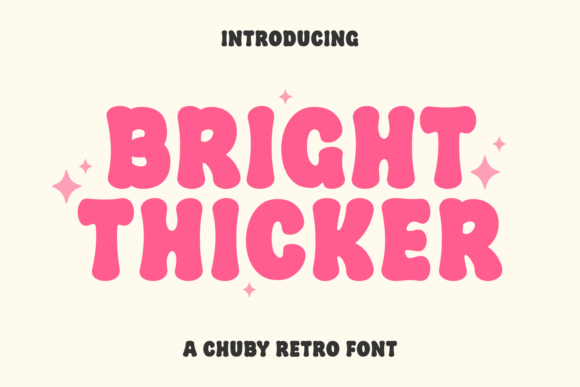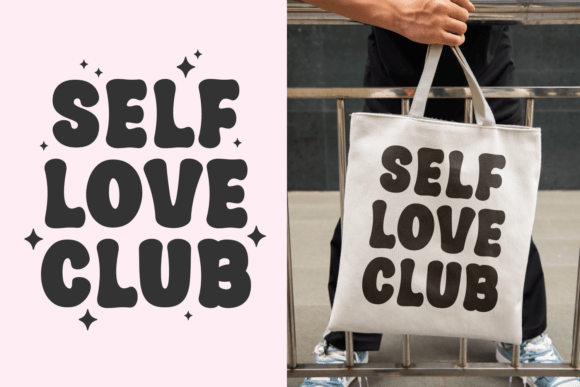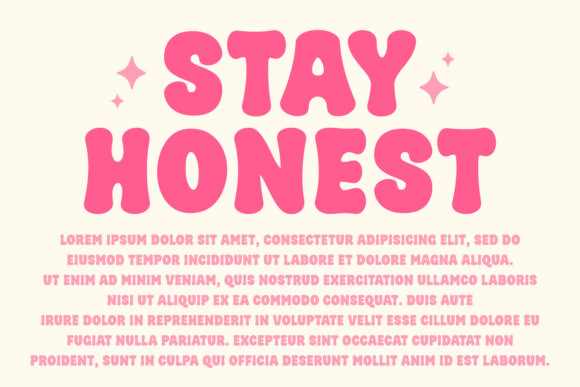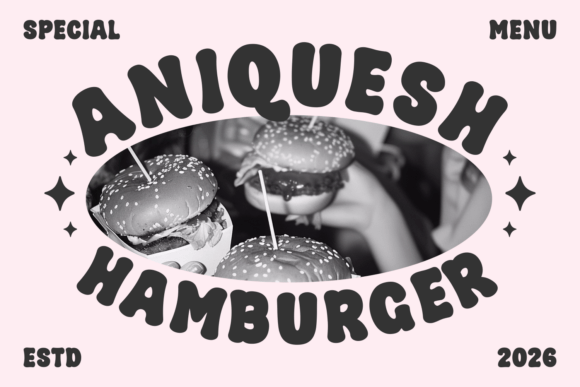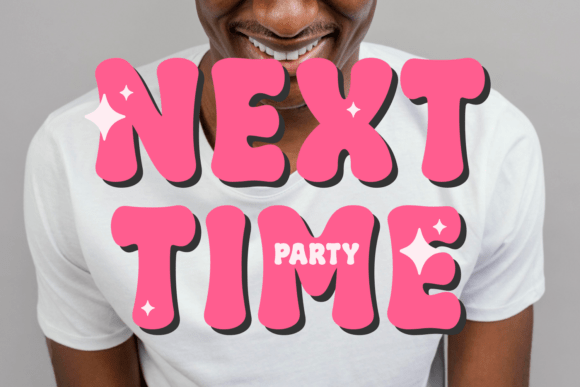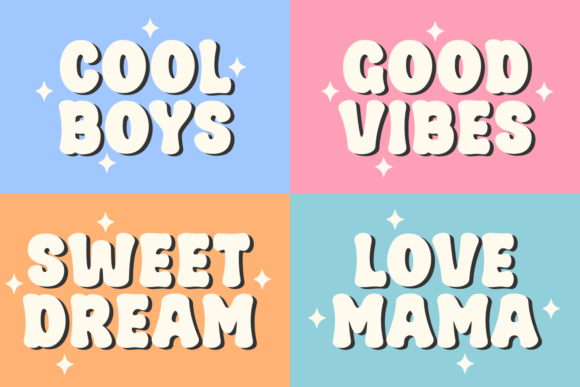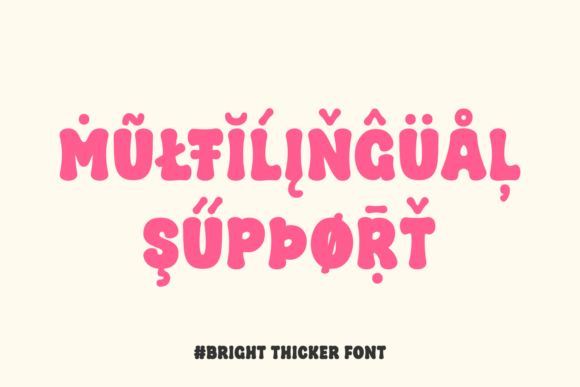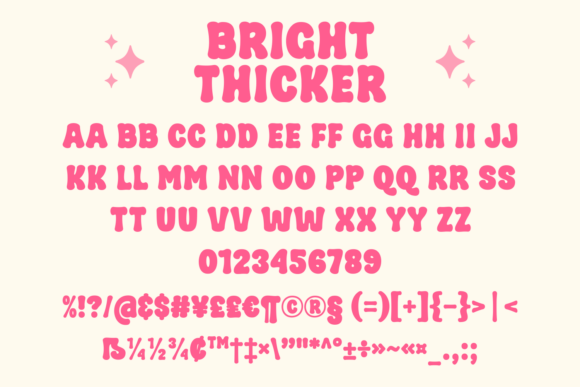
Bright Thicker Font
Introducing the “Bright Thicker Font,” a typography masterpiece that combines retro chic with contemporary freshness. This unique typeface captures the zest of a groovy era while embodying a sweet allure that tends to evoke a sense of Happy. Resembling adorable bubbles, the characters of this font are generously proportioned, making them ideal for projects that require a bigger, attention-grabbing typeface.
Whether you wish to whisper sweet words of love or make a big, bold impact, the Bright Thicker Font encapsulates it all. This vibrant, versatile, and modern-styled retro font is a delightful fusion of cute and cool, guaranteed to brighten up and bring an iconic edge to your creative endeavors.